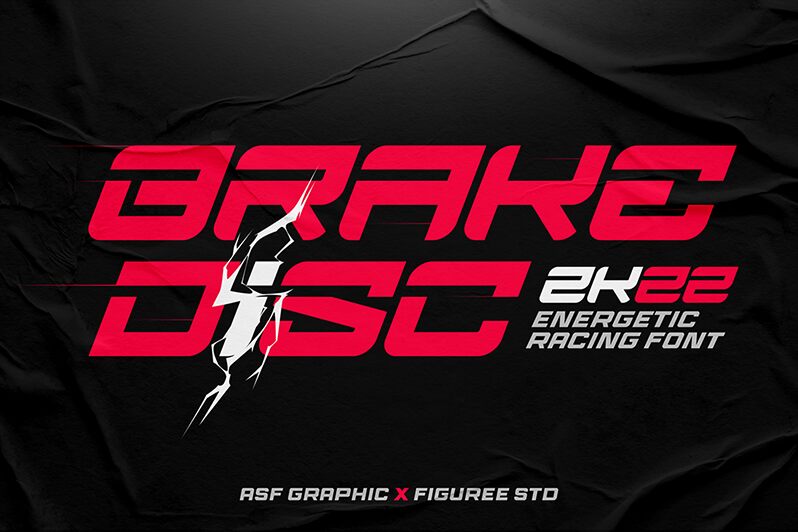
Brake Disc, a captivating display font crafted by Figuree Studio, exudes a powerful, technologically-inspired aesthetic. The expanded width and bold, distinct letterforms convey a sense of industrial might and modern elegance. This font's striking visual presence commands attention, seamlessly blending techno-inspired elements with a refined, cohesive design. Brake Disc's expansive character set and well-balanced proportions make it a versatile choice for a wide range of applications, from branding and packaging to editorial design and digital interfaces. Designers seeking to infuse their work with a bold, cutting-edge aesthetic will find Brake Disc to be a compelling and impactful typographic solution.
The font's distinctive features and robust character set lend themselves well to impactful headline treatments, eye-catching logo designs, and attention-grabbing advertisements. Brake Disc's expanded width and powerful letterforms also make it an excellent choice for signage, event branding, and other large-scale applications where a bold, high-impact visual presence is desired.